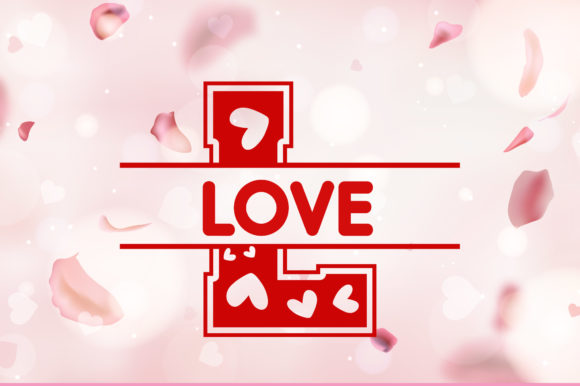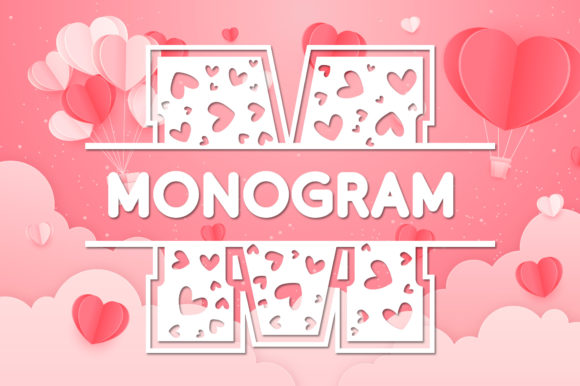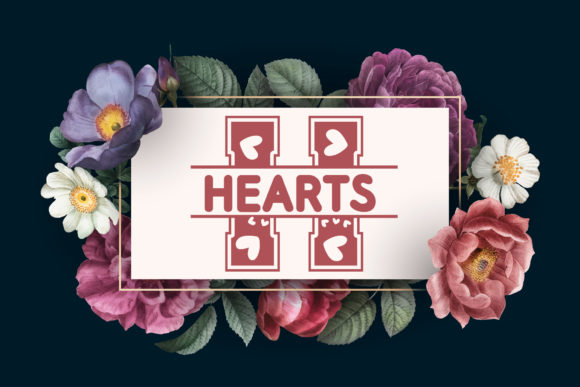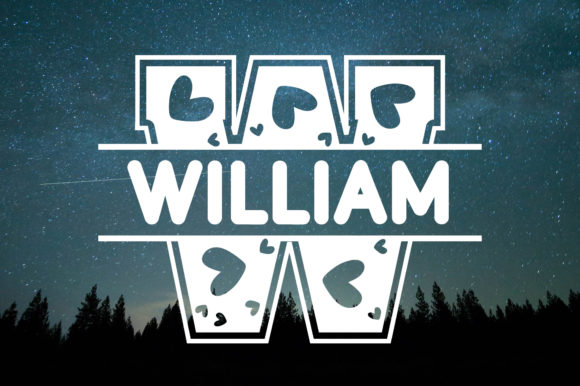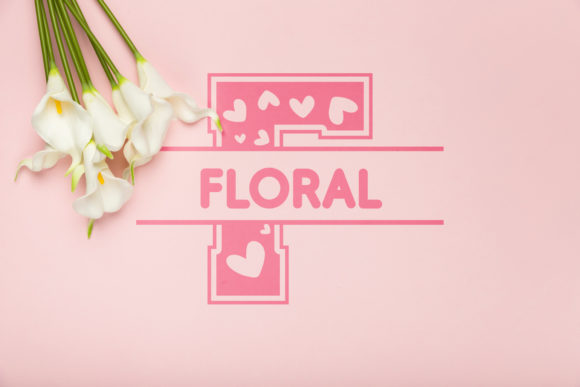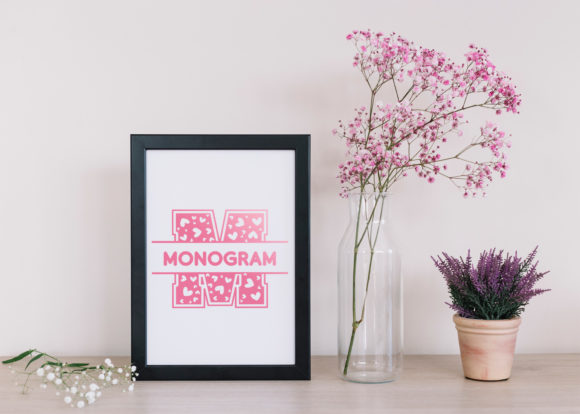
Introducing Hearts Monogram Font: The Ultimate Choice for Bold and Trendy Designs
Are you a designer or crafter looking for a font that can add a touch of personality to your projects? Look no further than Hearts Monogram Font, a cool and bold display font that’s perfect for creating casual and informal designs. With its trendy style and versatility, Hearts Monogram is the ideal choice for a wide range of creative projects.
What Makes Hearts Monogram Font So Special?
Hearts Monogram Font is a unique and eye-catching font that’s designed to make a statement. Its bold and chunky letters are perfect for creating attention-grabbing headlines, titles, and logos. The font features a distinctive monogram style, with hearts integrated into the letters to add a touch of whimsy and romance.
Key Features of Hearts Monogram Font
- Bold and Chunky Letters: Hearts Monogram Font features bold and chunky letters that are perfect for creating attention-grabbing headlines and titles.
- Trendy Style: The font has a trendy and modern style that’s perfect for creating casual and informal designs.
- Monogram Style: The font features a distinctive monogram style, with hearts integrated into the letters to add a touch of whimsy and romance.
- Hearts Integrated: The font features hearts integrated into the letters, making it perfect for creating designs for Valentine’s Day, weddings, and other romantic occasions.
Uses for Hearts Monogram Font
Hearts Monogram Font is a versatile font that can be used for a wide range of creative projects, including:
- Logos and Branding: The font is perfect for creating bold and eye-catching logos and branding materials.
- Social Media Graphics: Hearts Monogram Font is ideal for creating social media graphics, such as Facebook posts, Instagram stories, and Twitter headers.
- Wedding and Event Decor: The font is perfect for creating wedding and event decor, such as invitations, signs, and banners.
- Crafting and DIY Projects: Hearts Monogram Font is great for crafting and DIY projects, such as scrapbooking, card making, and iron-on designs.
Why Choose Hearts Monogram Font?
There are many reasons why Hearts Monogram Font is the perfect choice for your next creative project:
- Unique and Eye-Catching: The font is unique and eye-catching, making it perfect for creating designs that stand out.
- Easy to Read: Despite its bold and chunky style, Hearts Monogram Font is easy to read, even at small sizes.
- Versatile: The font is versatile and can be used for a wide range of creative projects.
- High-Quality: Hearts Monogram Font is a high-quality font that’s designed to deliver exceptional results.
Hearts Monogram Font is a cool and bold display font that’s perfect for creating casual and informal designs. With its trendy style, distinctive monogram style, and hearts integrated into the letters, it’s the ideal choice for a wide range of creative projects. Whether you’re a designer or crafter, Hearts Monogram Font is a must-have font that will add a touch of personality to your projects.